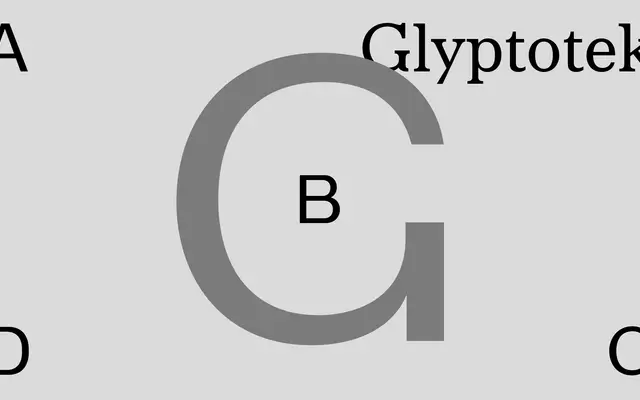
Glyptotek specimen from A2-Type
A revival drawn from the original lettering of the Ny Carlsberg Glyptotek in Copenhagen, preserving its peculiar mix of serif uppercase and sans-serif lowercase as a distinct subfamily.
Based on lettering found on Vilhelm Dahlerup's 1880s museum building in central Copenhagen, the family offers four cuts: a pure sans (A), a matching serif (B), and two mixed-case variants (C and D) that replicate the original alphabet's unusual pairing of serif caps with sans lowercase. All four subfamilies are available at Regular weight only, and the full family is provided free of charge to designers working directly with the Ny Carlsberg Glyptotek on signage, publications or campaigns. Its specificity of origin gives it a credibility that generic historicist typefaces lack.
Derived from archival lettering on a Danish Neoclassical museum building, the family is unusual in combining serif uppercase with sans-serif lowercase as its primary source material, making it a display revival rather than a conventional text family.